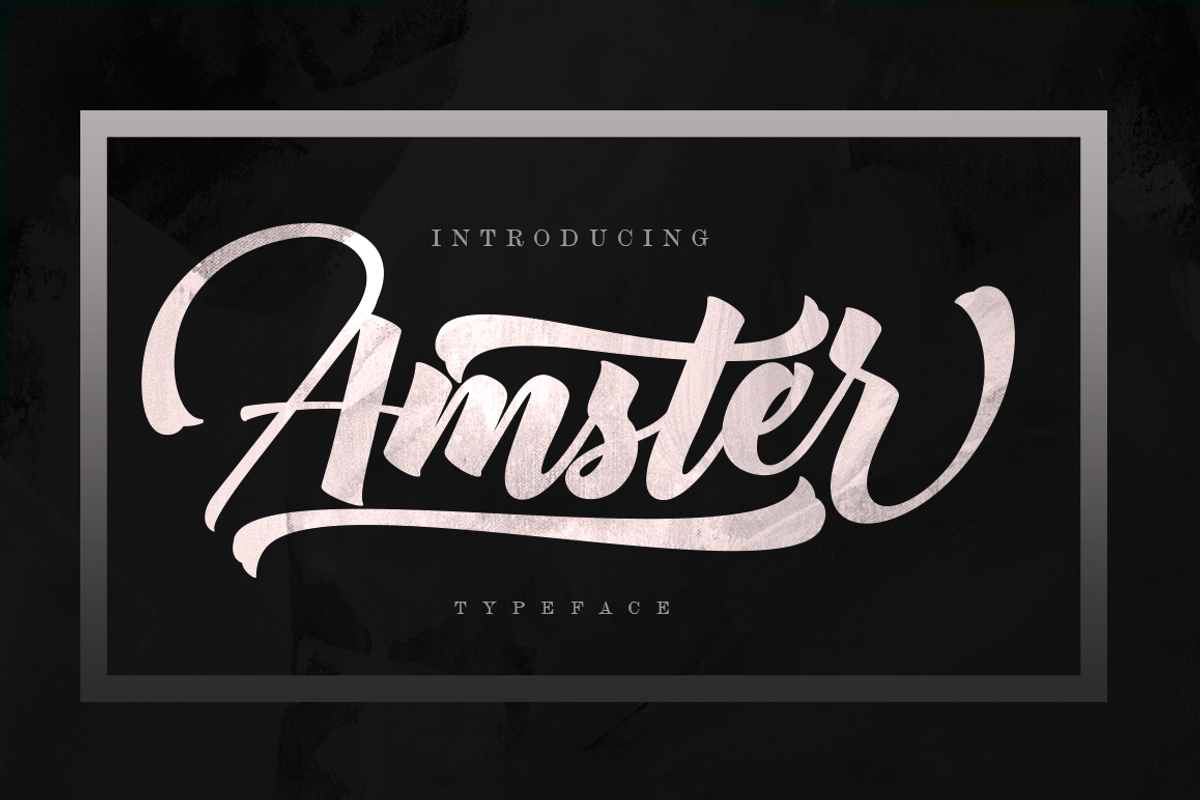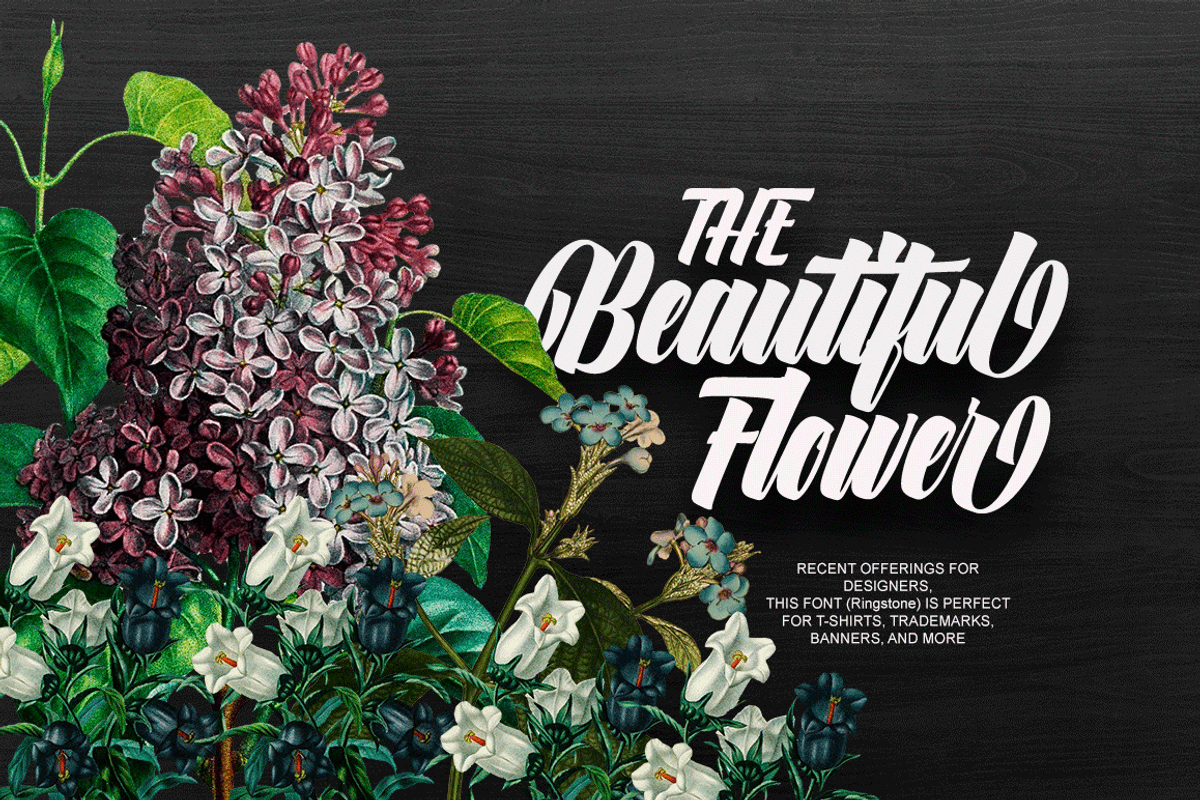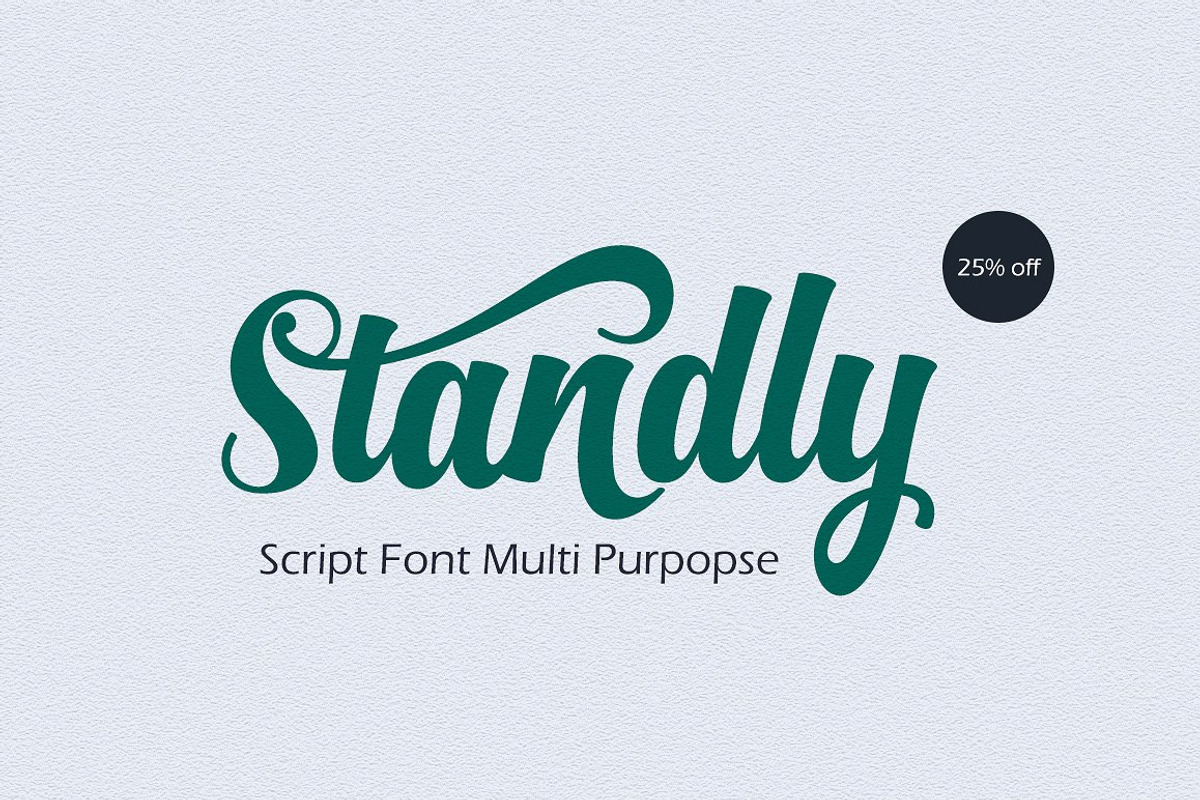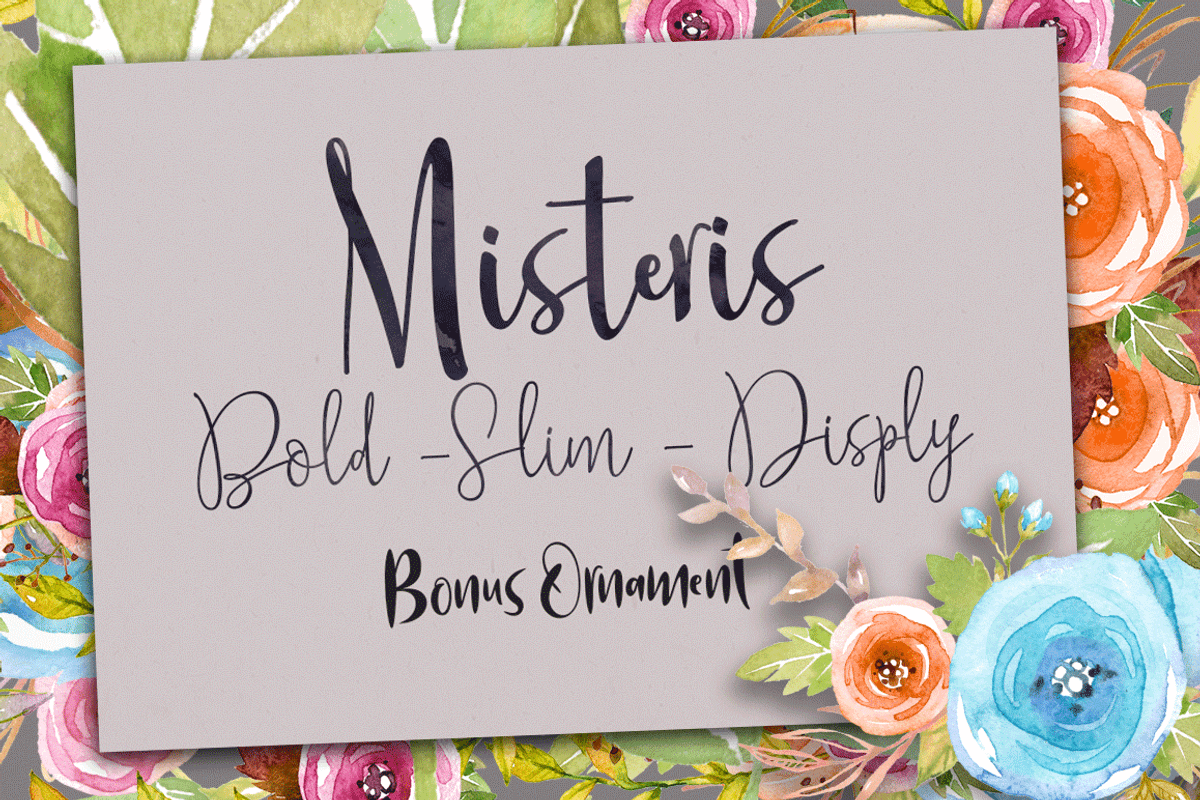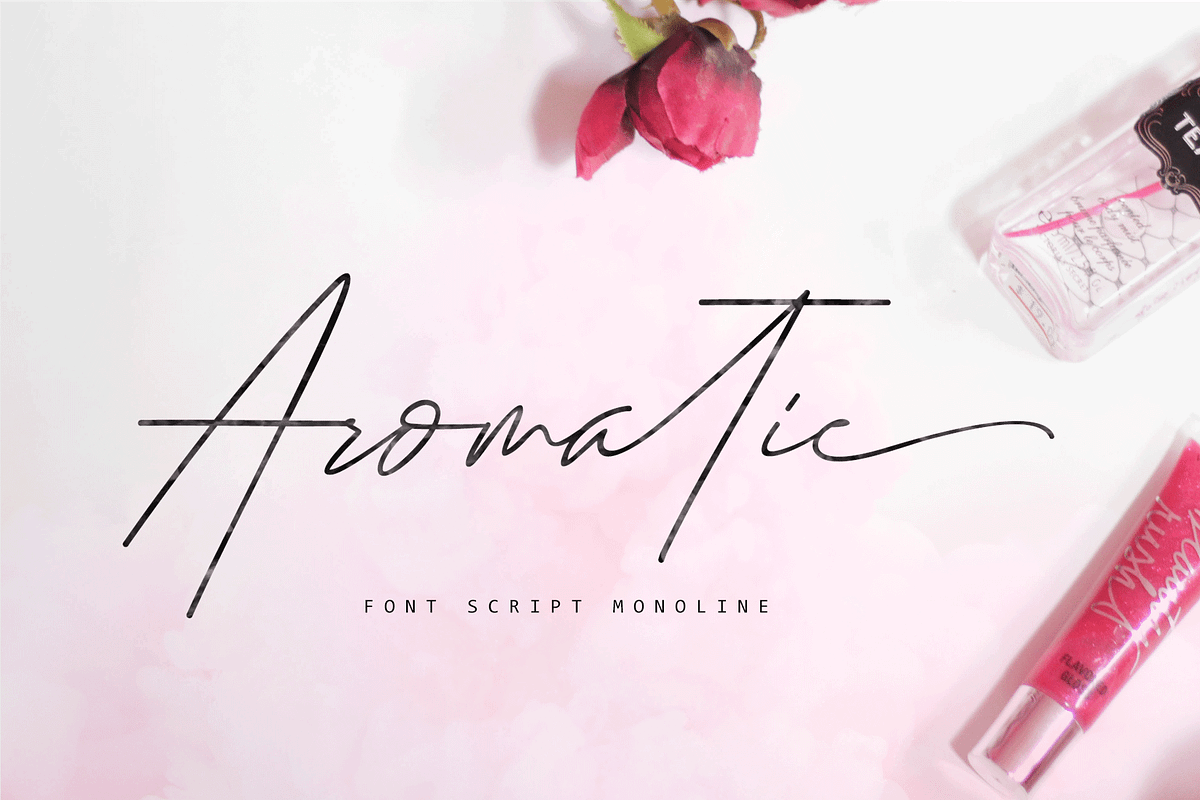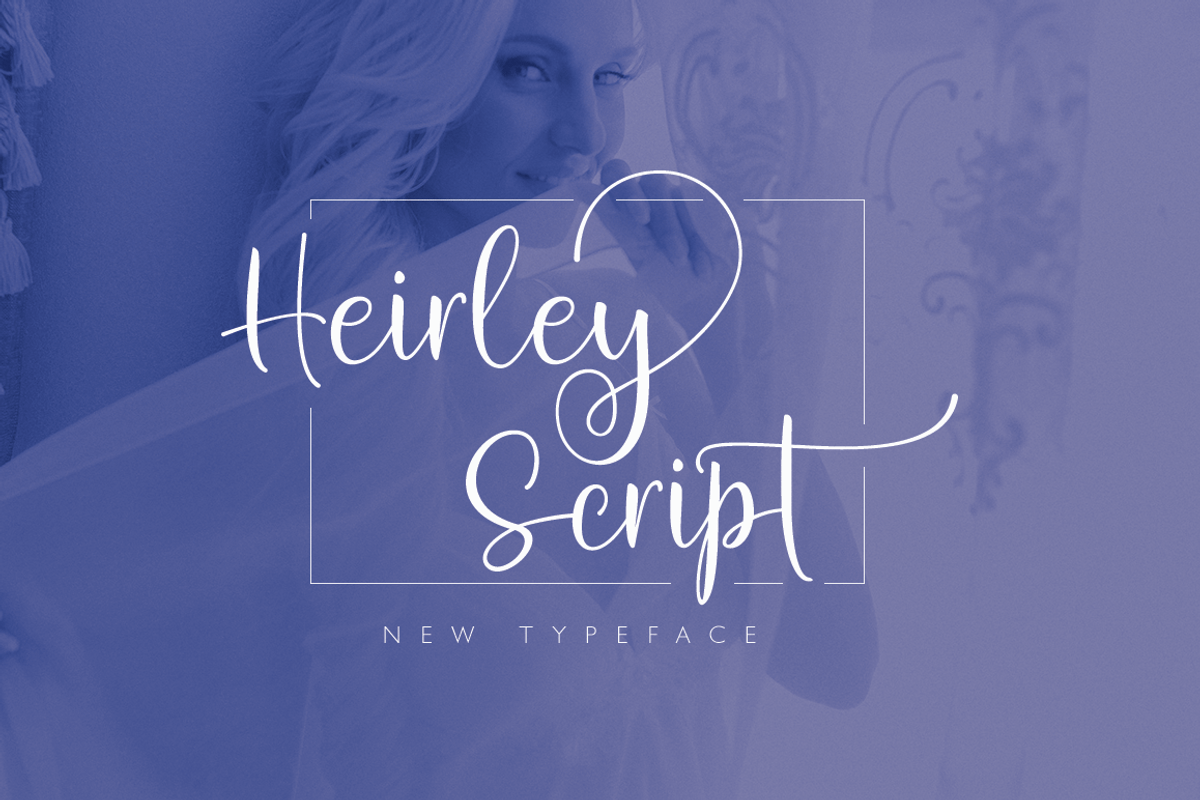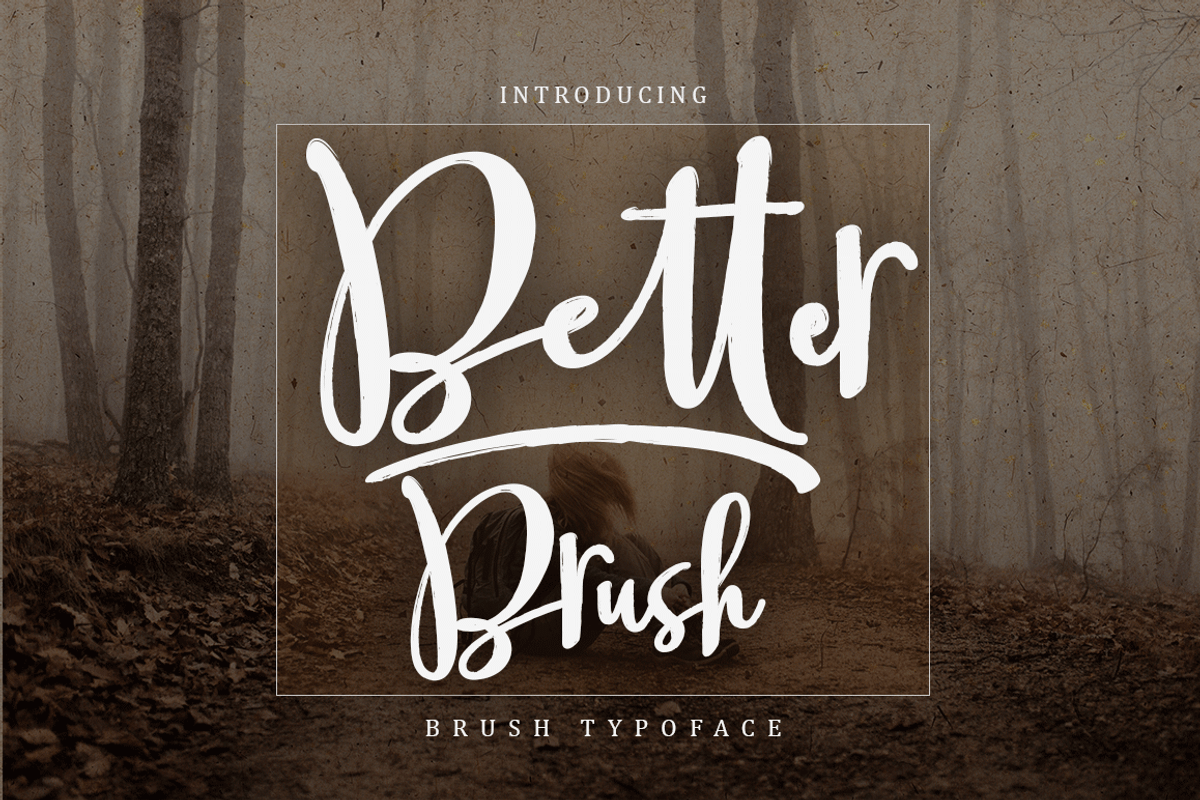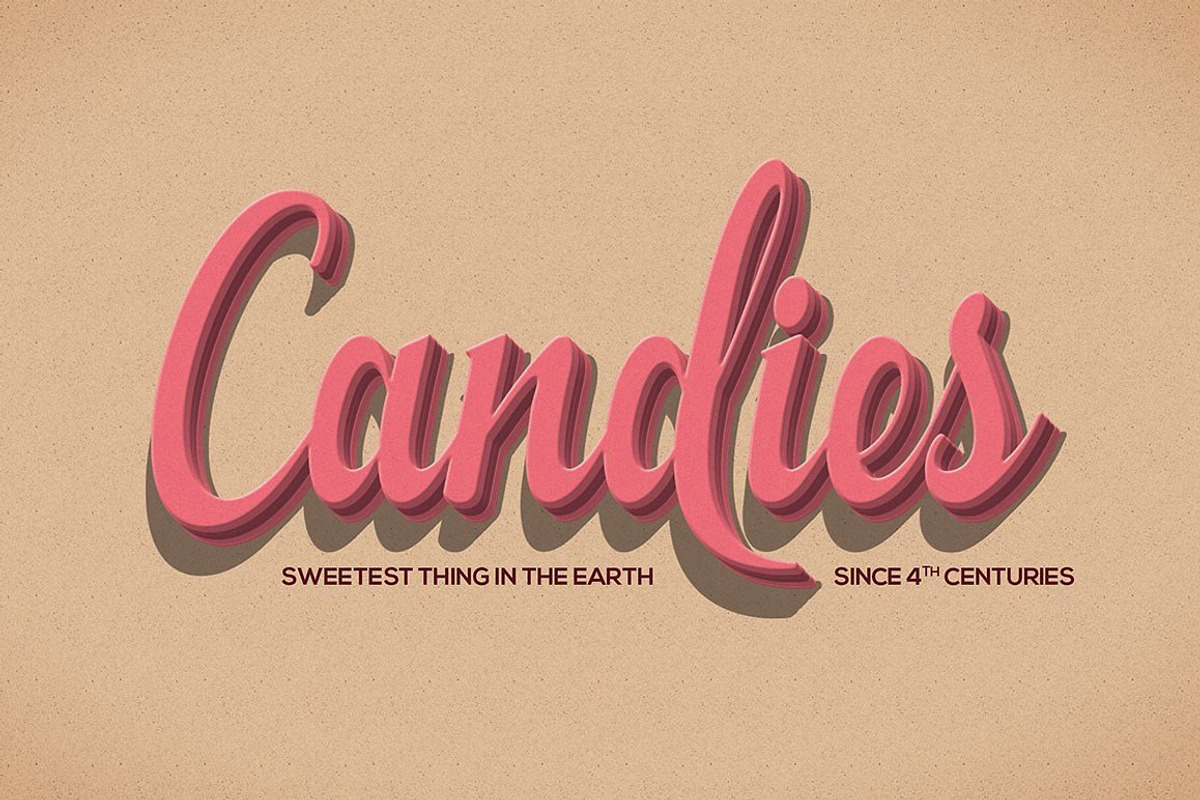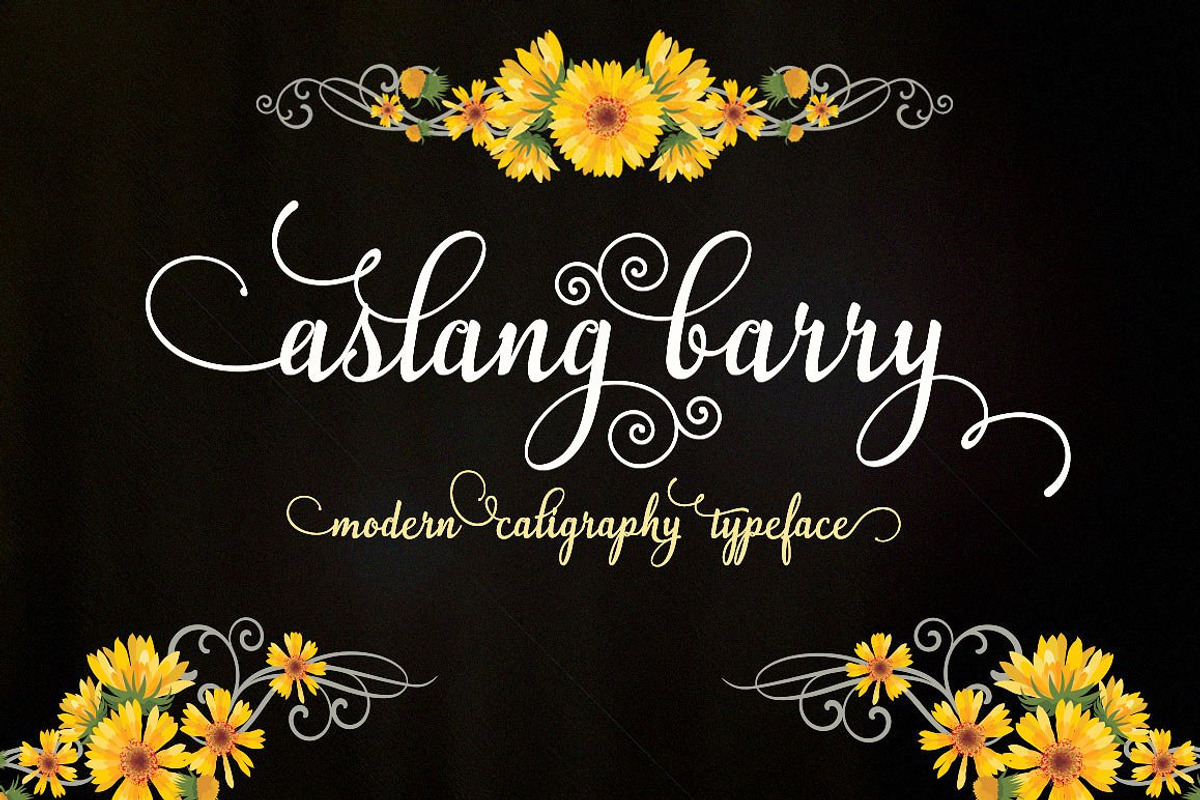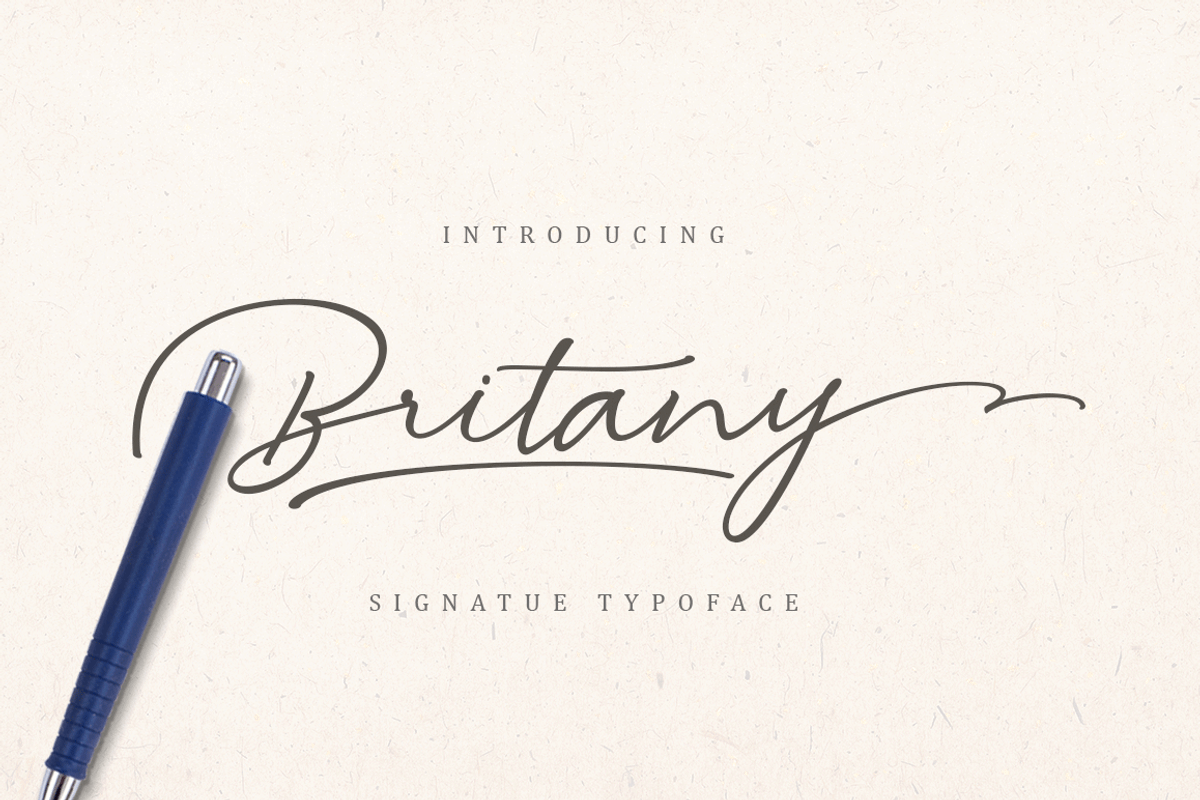
Calligraphy Big Bundle (95%off)
All 54 fonts Collection, including scripts, displays, brushes, handwritten and serifs, there are also wizard ornaments and swashes. Only with $ 18. This collection includes all items in the Groens Store (https://creativemarket.com/Groens) with hundreds of glyphs, including alternatives, ligatures, swash, separate swash, contextual alternatives and international language support. which can be accessed using OpenType smart programs such as Adobe Illustrator, Adobe InDesign, CorelDraw X6-X7, Microsoft Word 2010 or later.
Can be used for various purposes.such as headings, logos, wedding invitation, t-shirt, letterhead, signage, lable, news, posters, badges etc.
- Catfish script https://crmrkt.com/kVEWx9
- Wolfsbane https://crmrkt.com/3GomRy ( +Ornmt)
- Umbrella https://crmrkt.com/djEXpd
- Aslang Barry https://crmrkt.com/X9aAXR
- Bettaria Script https://crmrkt.com/M6bXaV
- Melani Script https://crmrkt.com/vlmGpW
- Montala script https://crmrkt.com/BV1rRx
- Olivera https://crmrkt.com/WBaW8d
- Fameliya https://crmrkt.com/7O1l5x
- Mutiara script https://crmrkt.com/GK1dzW